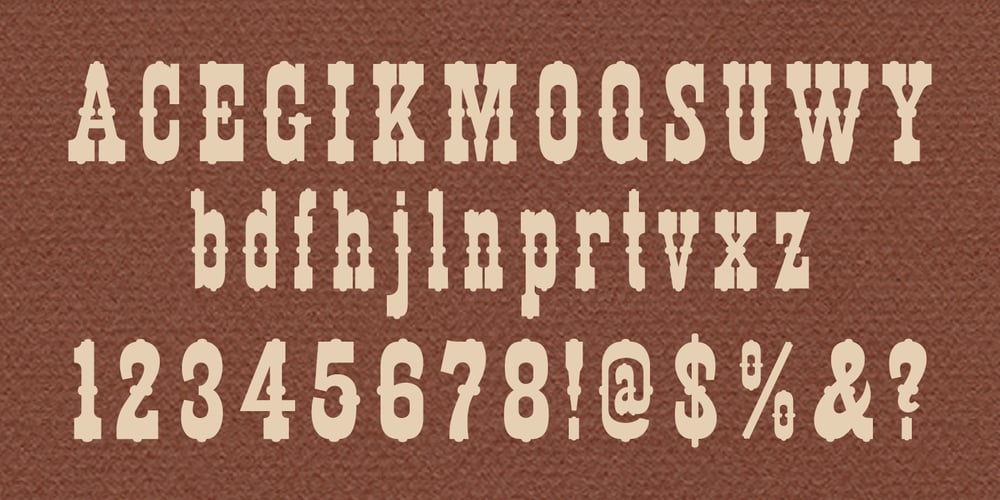
MPI Arcadian
MPI Arcadian font
MPI Arcadian Font Family was designed by published by mpressInteractive. MPI Arcadian contains 1 styles and family package options. Arcadian was first produced in wood type around 1870 by William H. Page & Company. It is a semi-ornamented face based on a French Clarendon, with dots added to the median and the tops and bottoms of the letters. It has a distinctly “Old West” feel, and was likely used to add a little pizzazz to advertising and broadsides of the time.